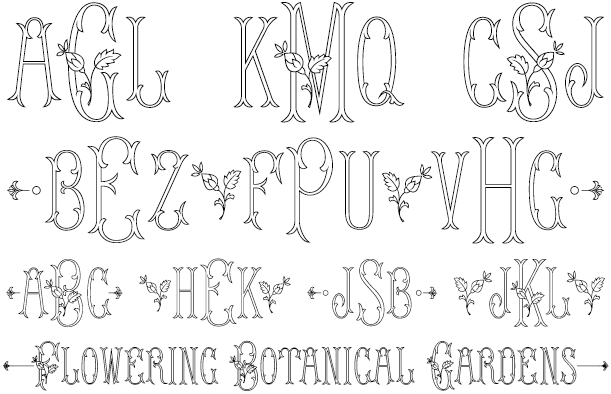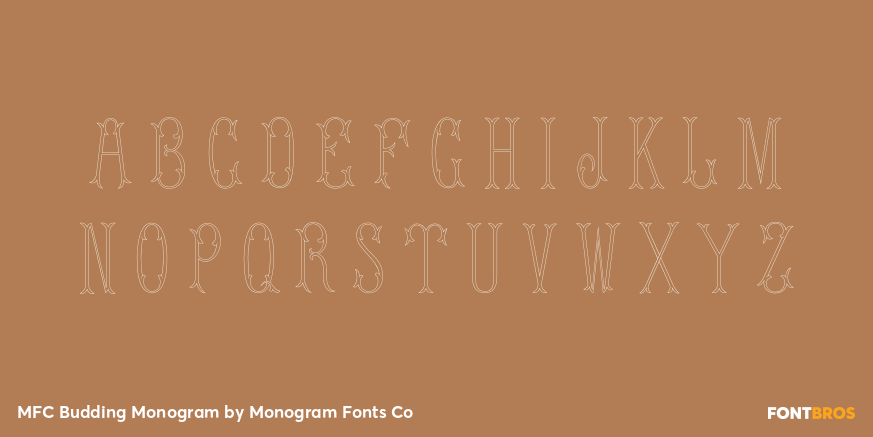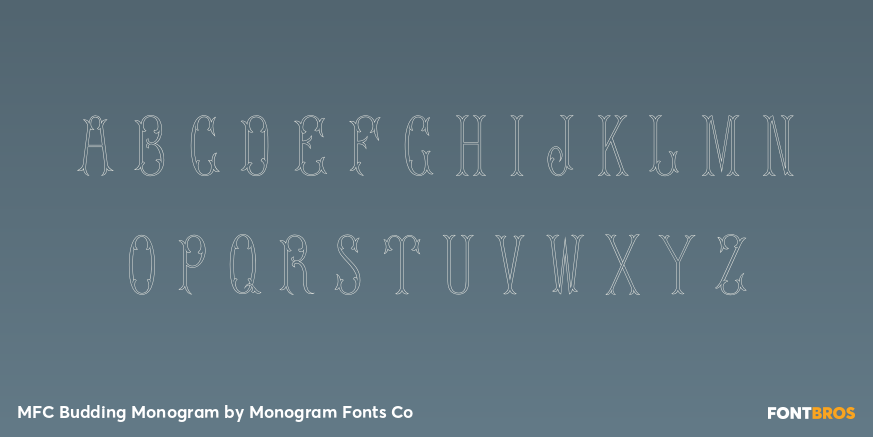
MFC Budding Monogram
Font Family by Monogram Fonts Co
The inspiration source for Budding Monogram is a unique embroidery alphabet from the early 1900's. The original design was a Capitals only letterset adorned with a budding flower. We have expanded that character set to include both floral adorned Capitals, and bare Capitals, along with a set of smallcaps for creating traditional monograms.